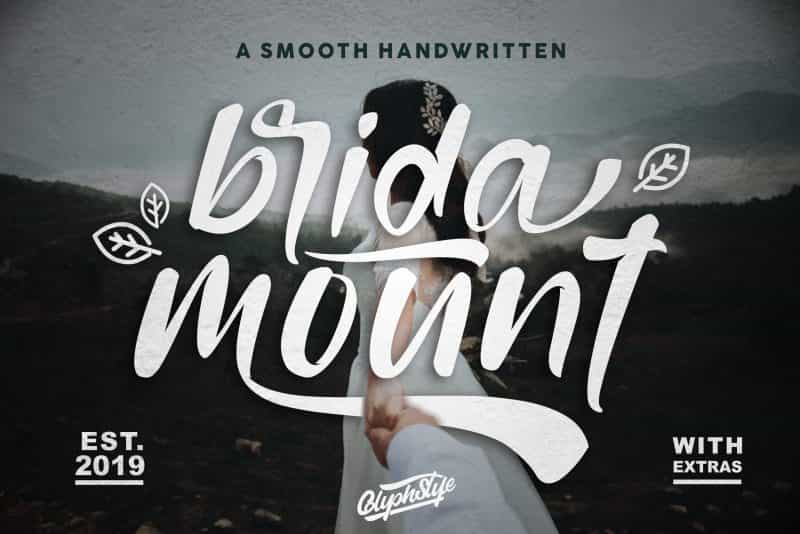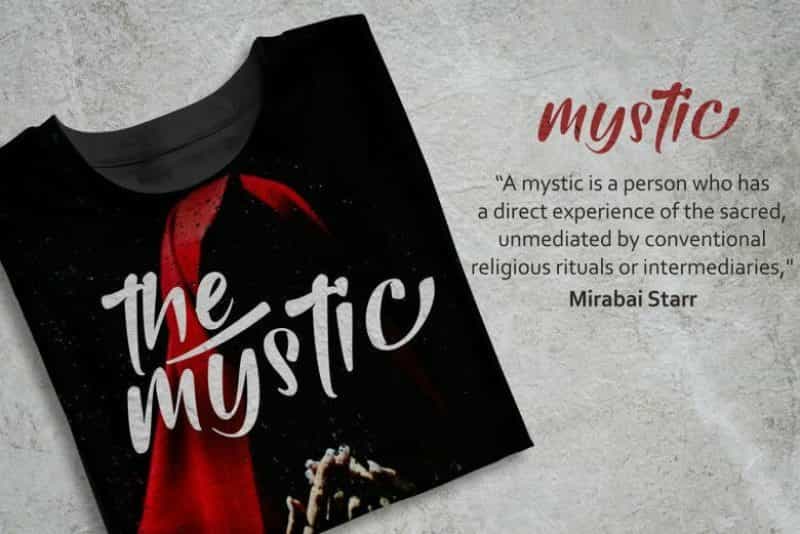
Bridamount Script Font is smooth handwriting. bridamount with smooth and detailed curves. bridamount is perfect for adventure theme project. Bridamount Script Font can be used for branding and logos, wedding designs, social media posts, advertisements, business cards, clothing products, quotes, magazine covers, labels, photography, watermarks, invitations, stationery, and any project that requires handwriting tastes smooth one. You also get an additional icon for adventure design.